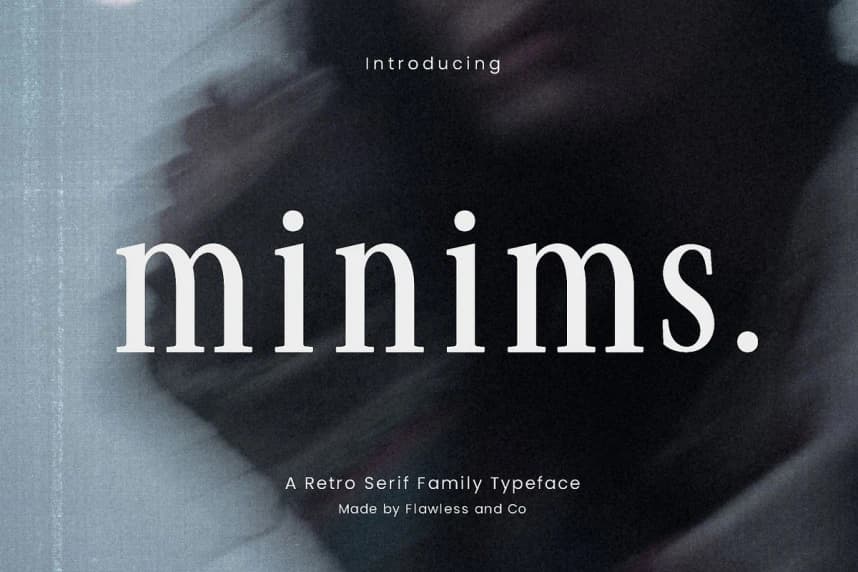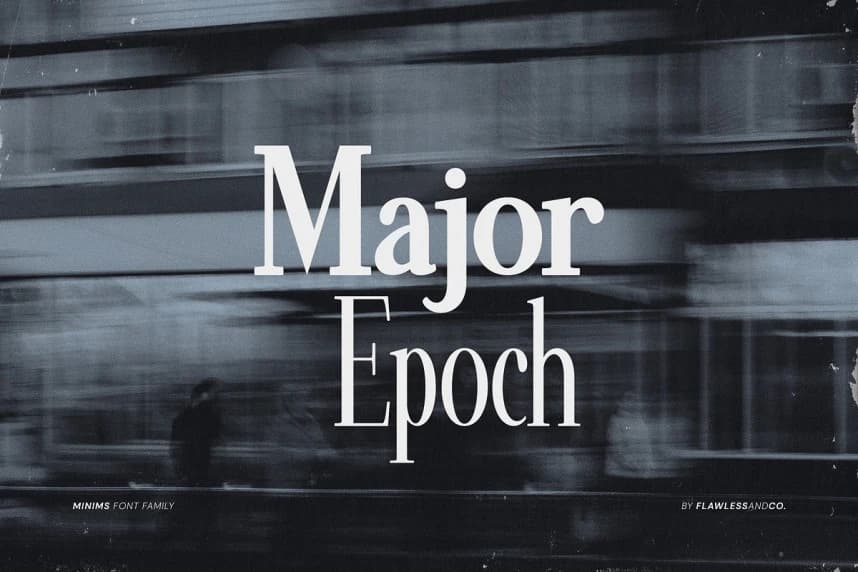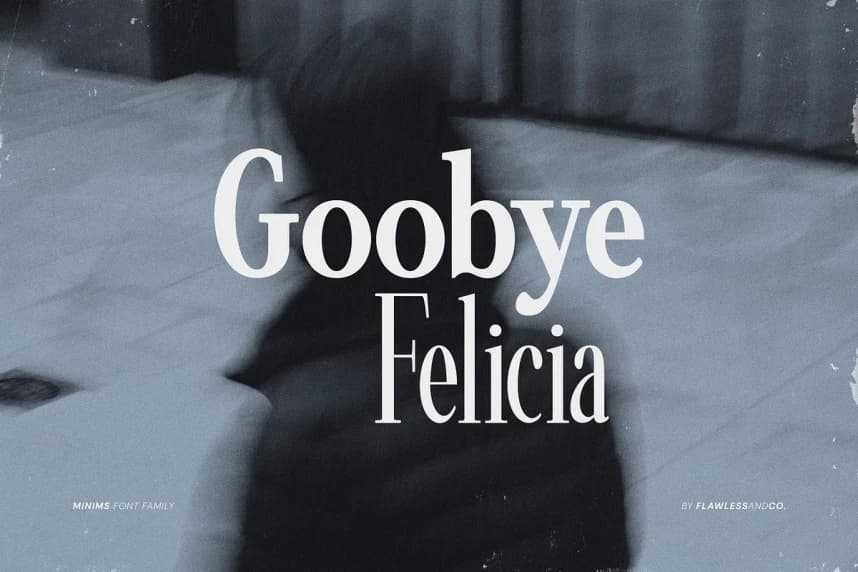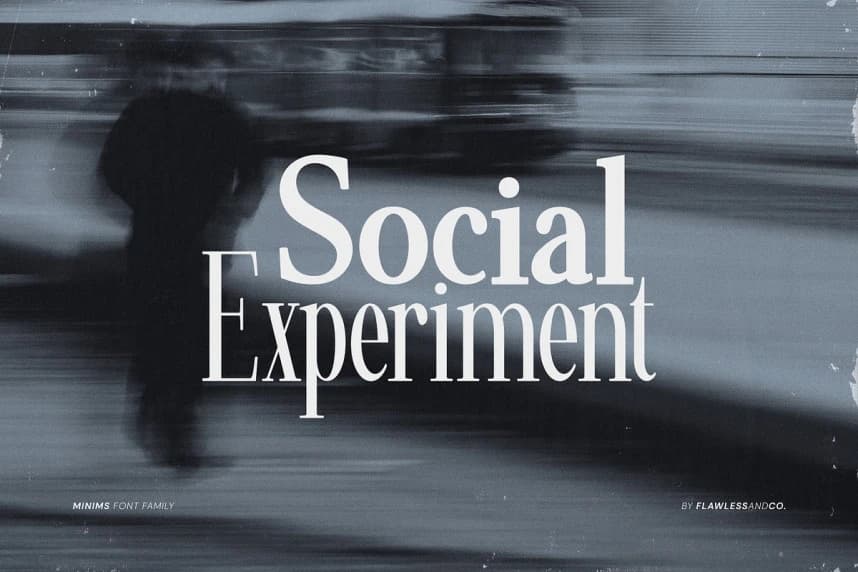
Minims Font
Minims Font - Retro Serif Family Font. Dive into the diverse world of typography with "Minims", a comprehensive typeface that goes beyond conventional limits. This font family is a symphony of styles, offering Thin, Extra Light, Light, Regular, Medium, Semi-Bold